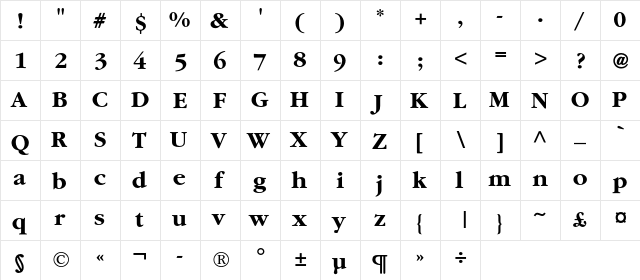
AGSaturdayC Bold
Design Context for AGSaturdayC Typeface
AGSaturdayC takes a measured approach to typography — its balanced proportions and neutral character make it a reliable workhorse for both digital and print work. Its bold stroke weight gives it real presence on the page.